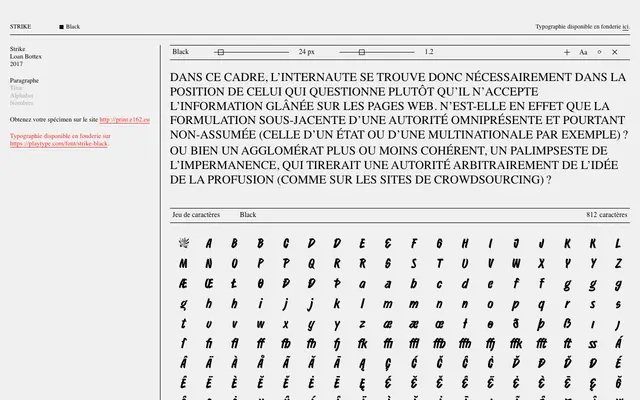
Strike
E162 · Loan Bottex · 2017
A single-weight Black display typeface by Loan Bottex, released in 2017 and designed for large-scale typographic impact.
Designed by Loan Bottex and released in 2017, Strike exists solely in a Black weight, making it a typeface built for maximum typographic presence at headline sizes. The character set covers 812 glyphs, offering reasonable depth for a display cut. It is sold via Playtype and distributed through the E162 foundry.
Available only in a single Black weight, Strike is a high-contrast display typeface designed for headline use at large sizes, placing it firmly in the display category.